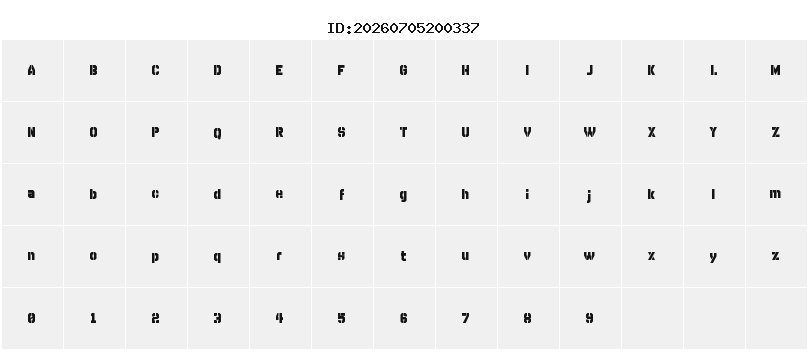
Disparador Stencil Preview
• Font Name: Disparador Stencil
• Full Font Name: Disparador Stencil Regular
• Designer: Tobias Sommer
About Disparador Stencil.ttf
Disparador Stencil.ttf is a modern, elegant sans-serif font designed for ultimate readability and visual harmony. Perfect for branding, headlines, web design, and print materials.